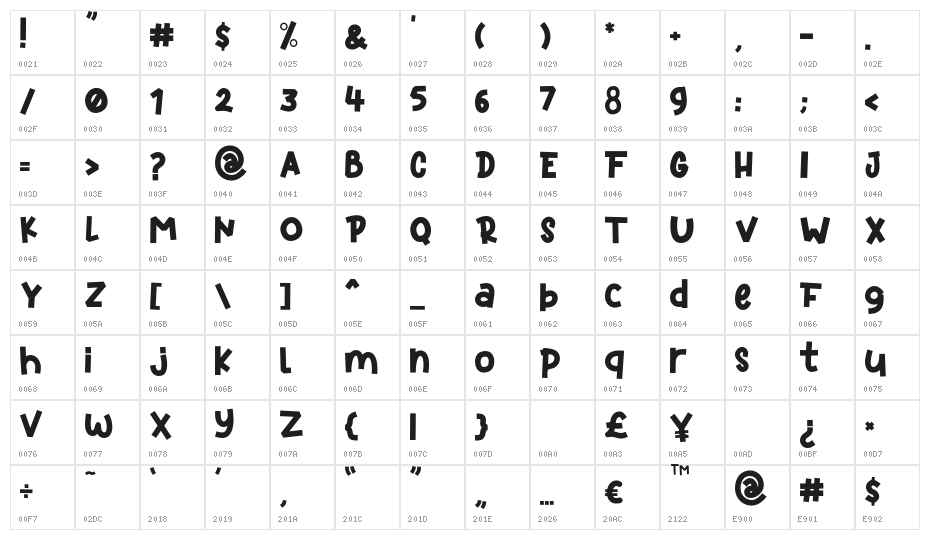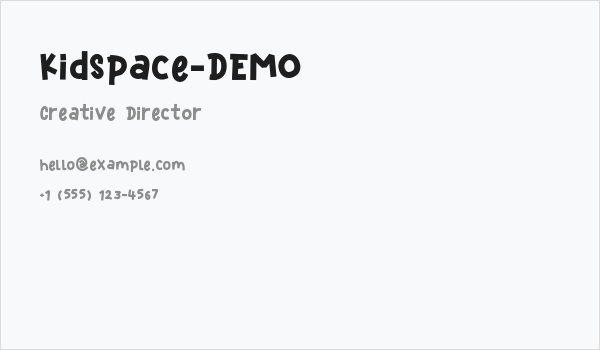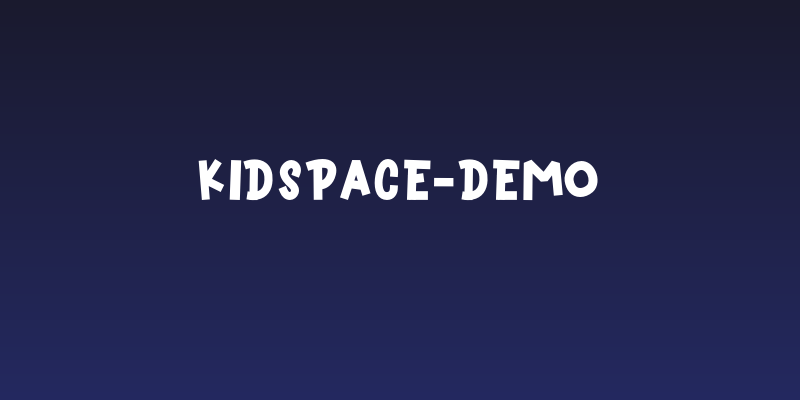
Kidspace-DEMO Font
Kidspace-DEMO Description
This playful and whimsical font features bold, rounded characters with a slightly irregular baseline, giving it a hand-drawn, childlike appearance. The uppercase and lowercase letters are distinct, with the uppercase being more angular and the lowercase more rounded. The numbers and special characters maintain the same playful style, making them easily recognizable and consistent with the overall design. The font's thick strokes and lack of sharp edges contribute to its friendly and approachable feel, making it ideal for projects aimed at children or those seeking a fun, informal look.
| Use Case | Headlines, Logos, Children's materials |
| Proposed Projects | Ideal for children's books, educational materials, toy packaging, and playful branding. |